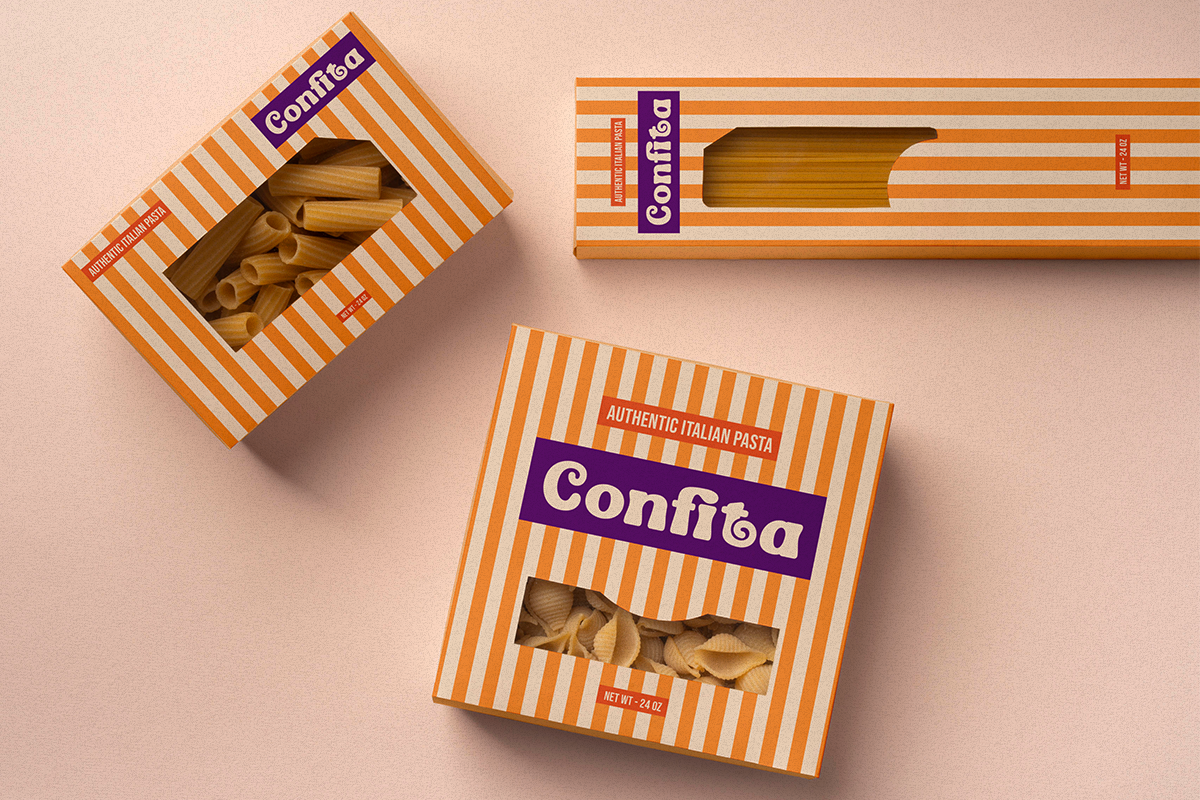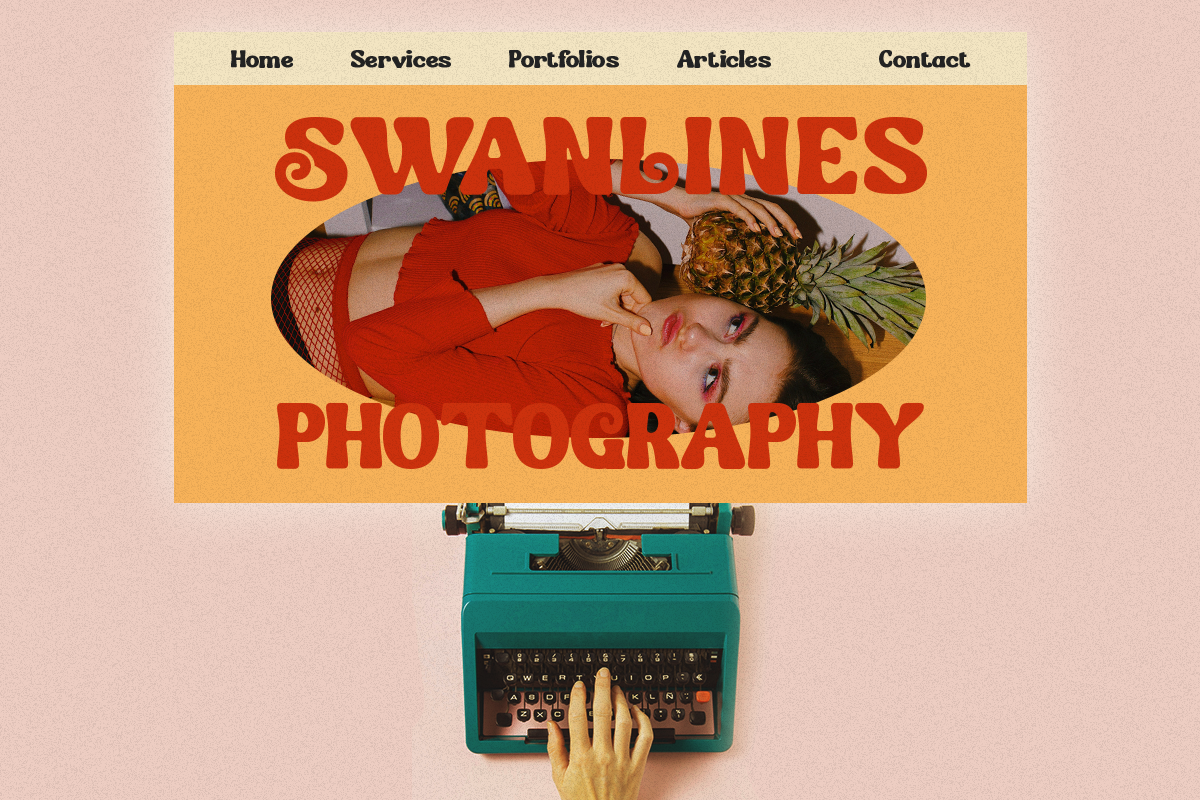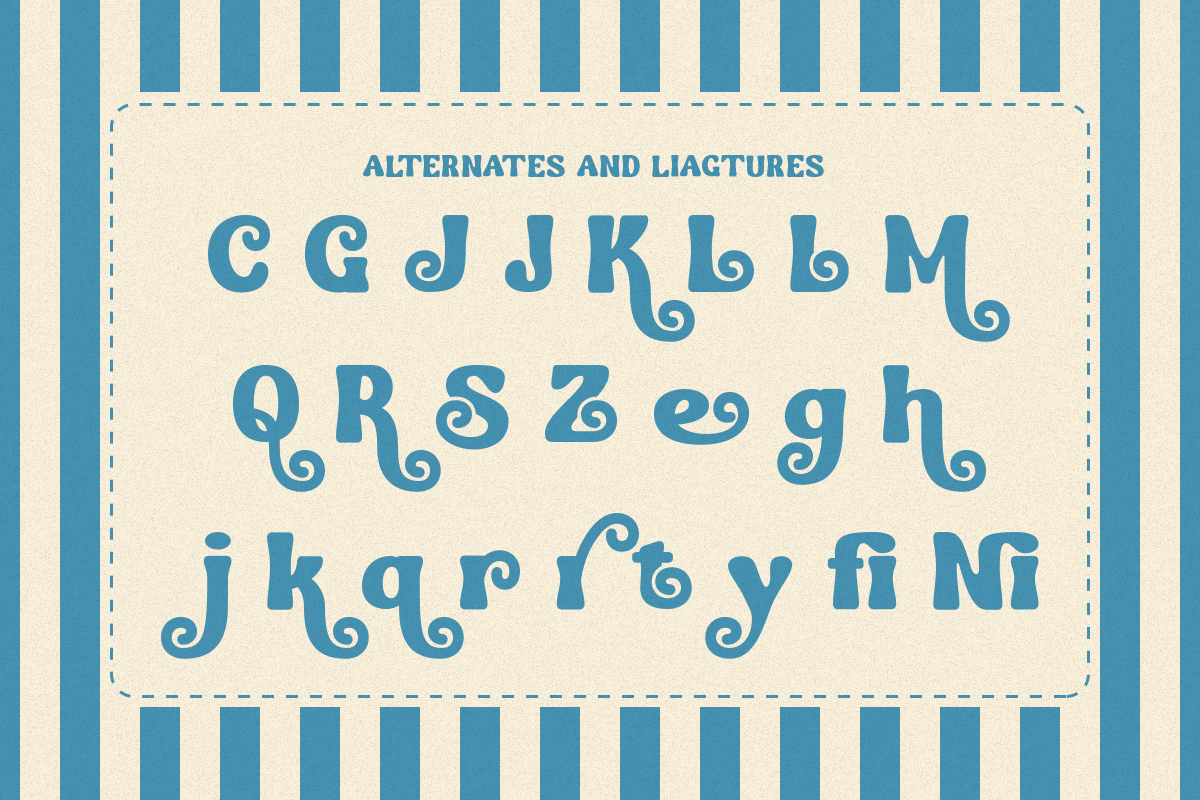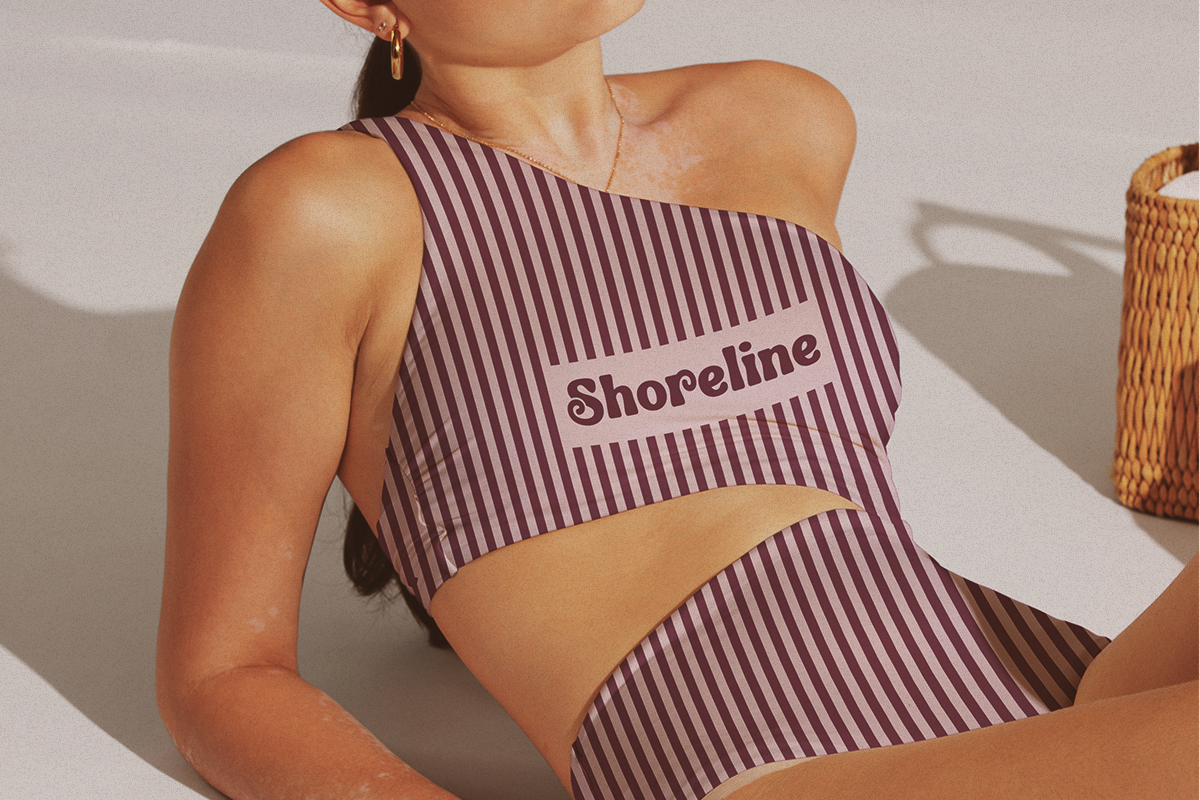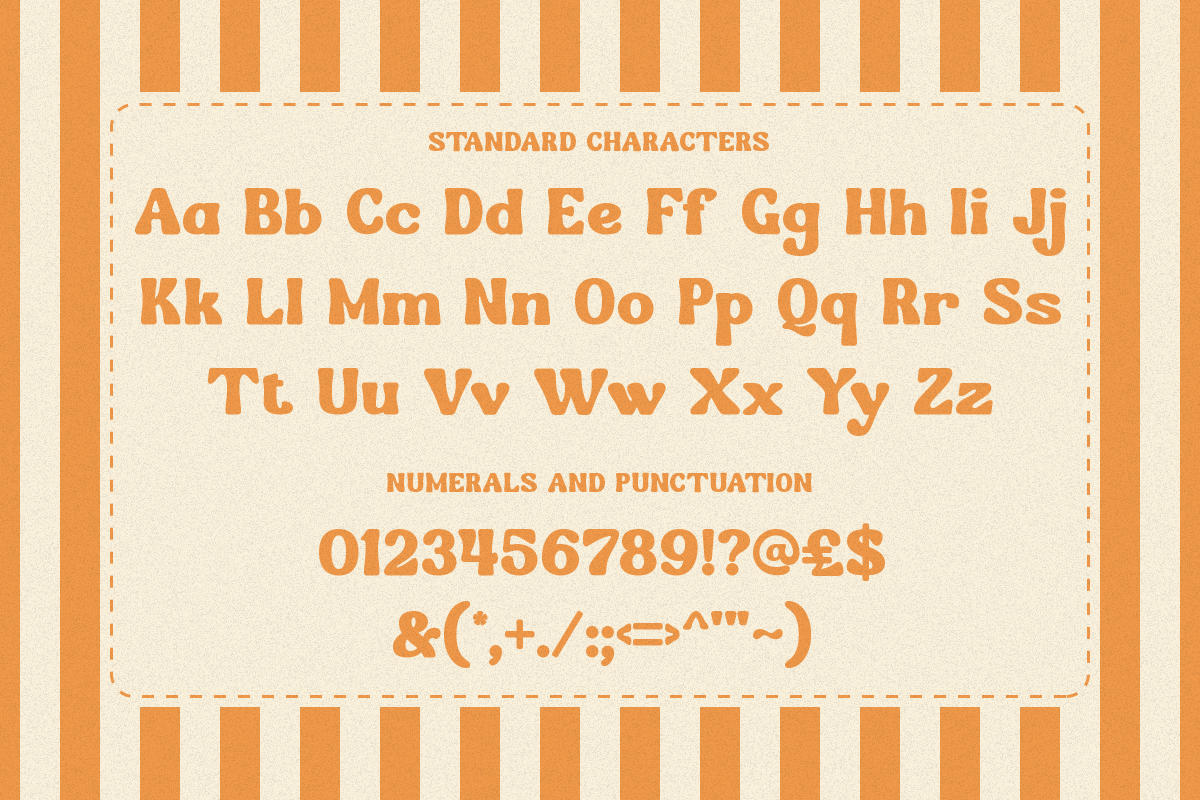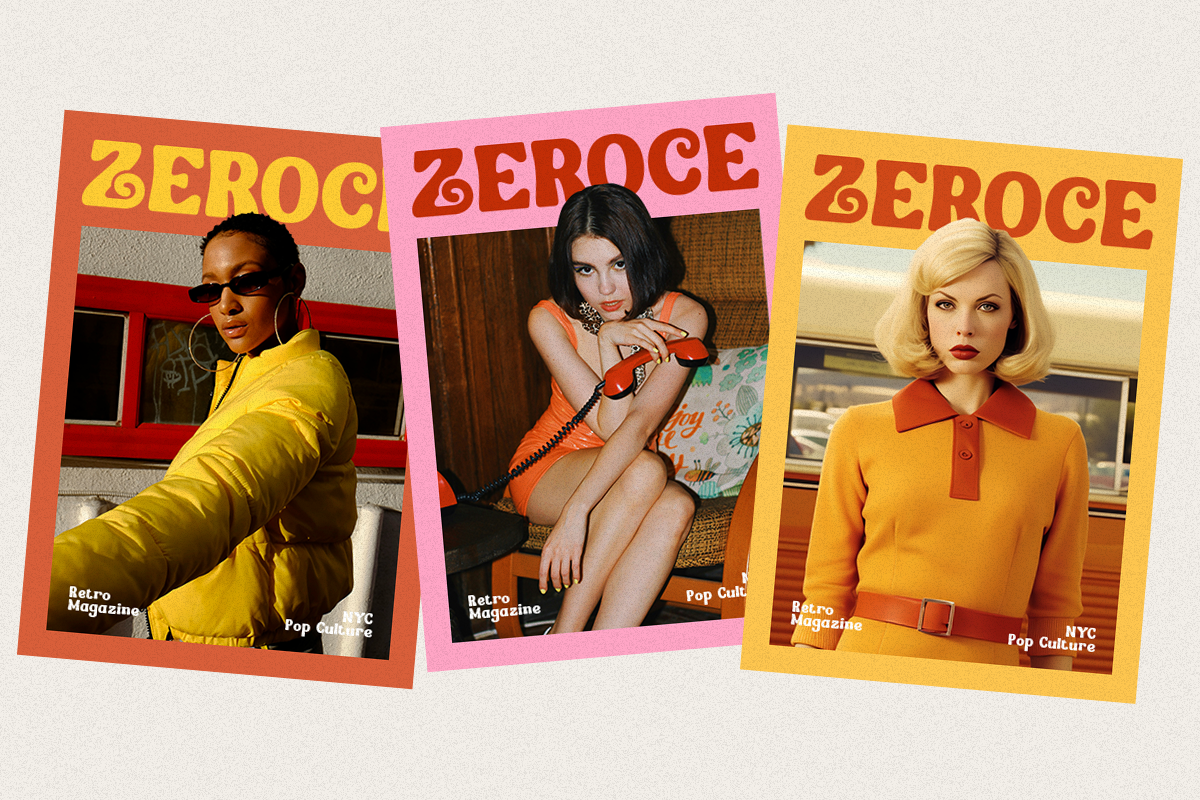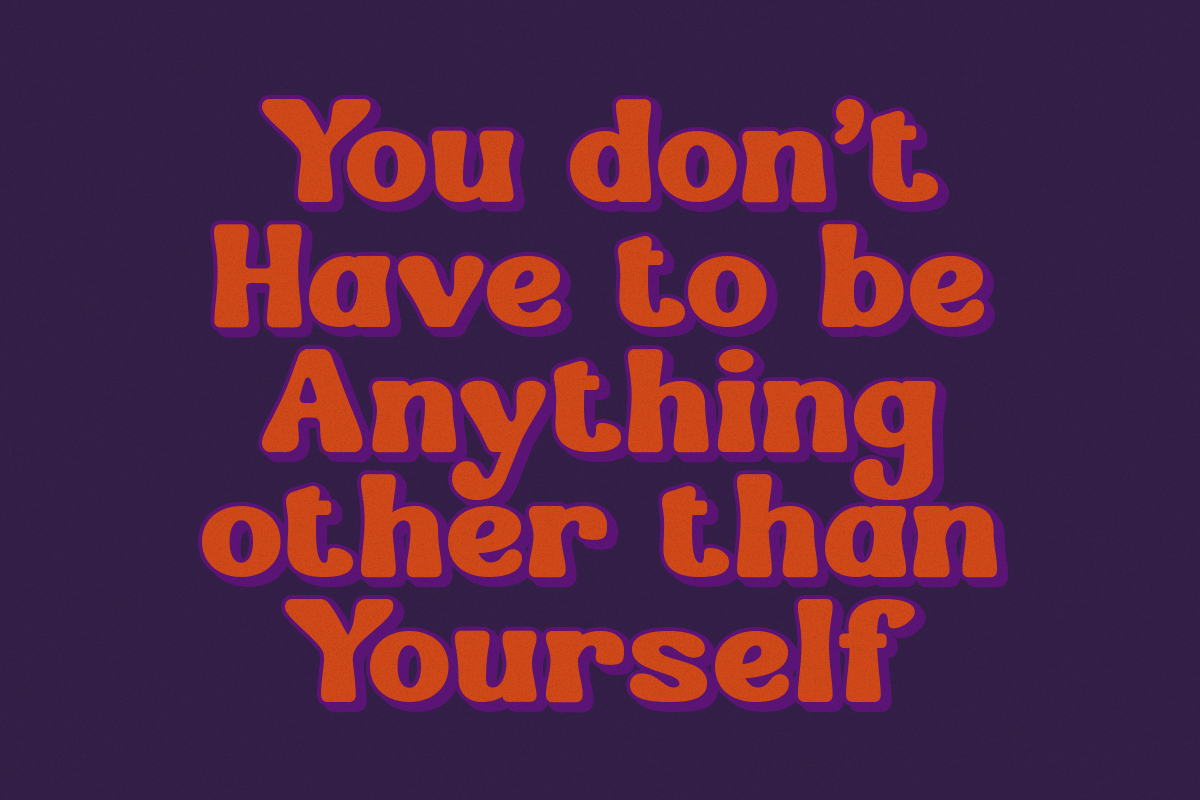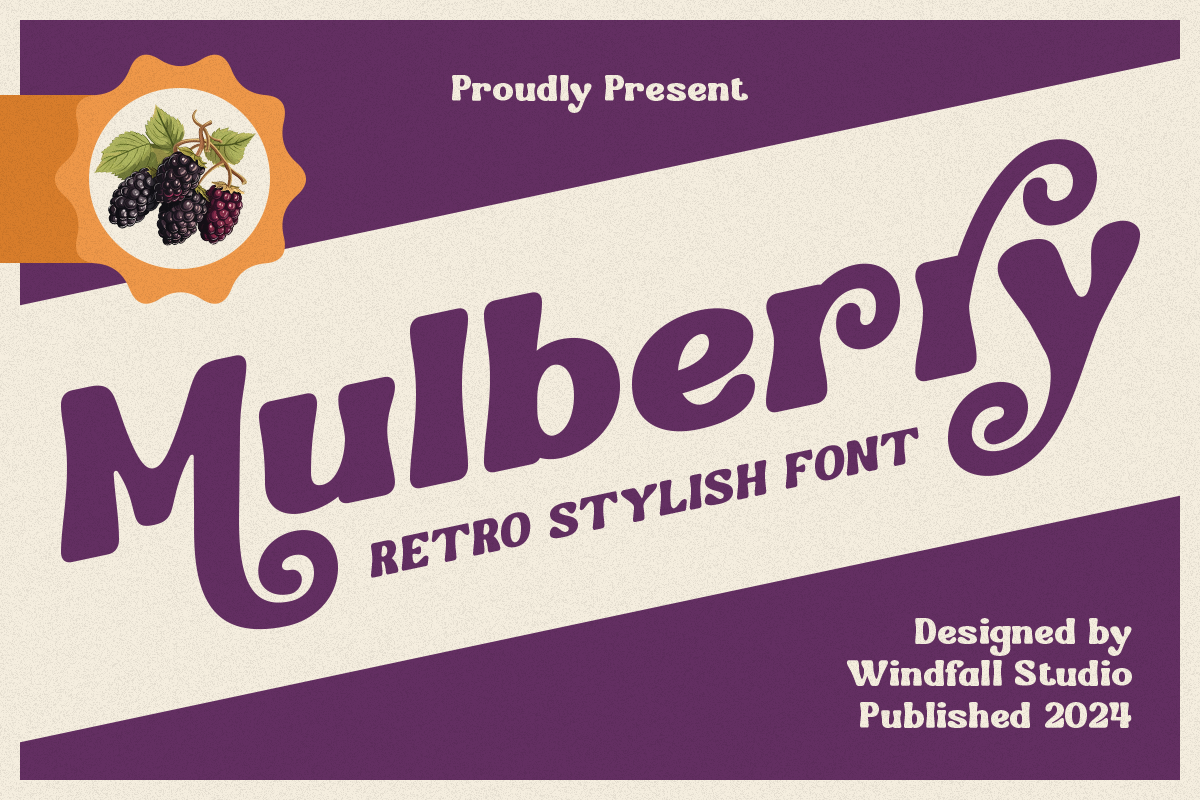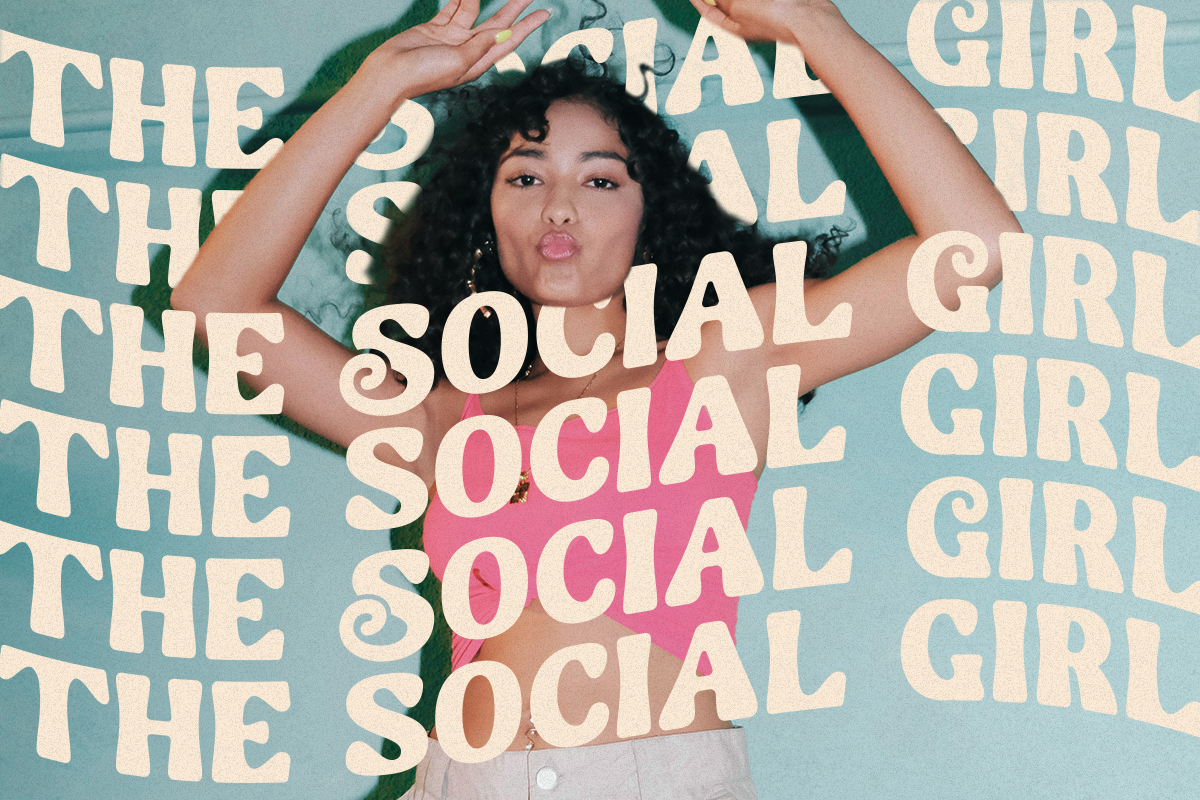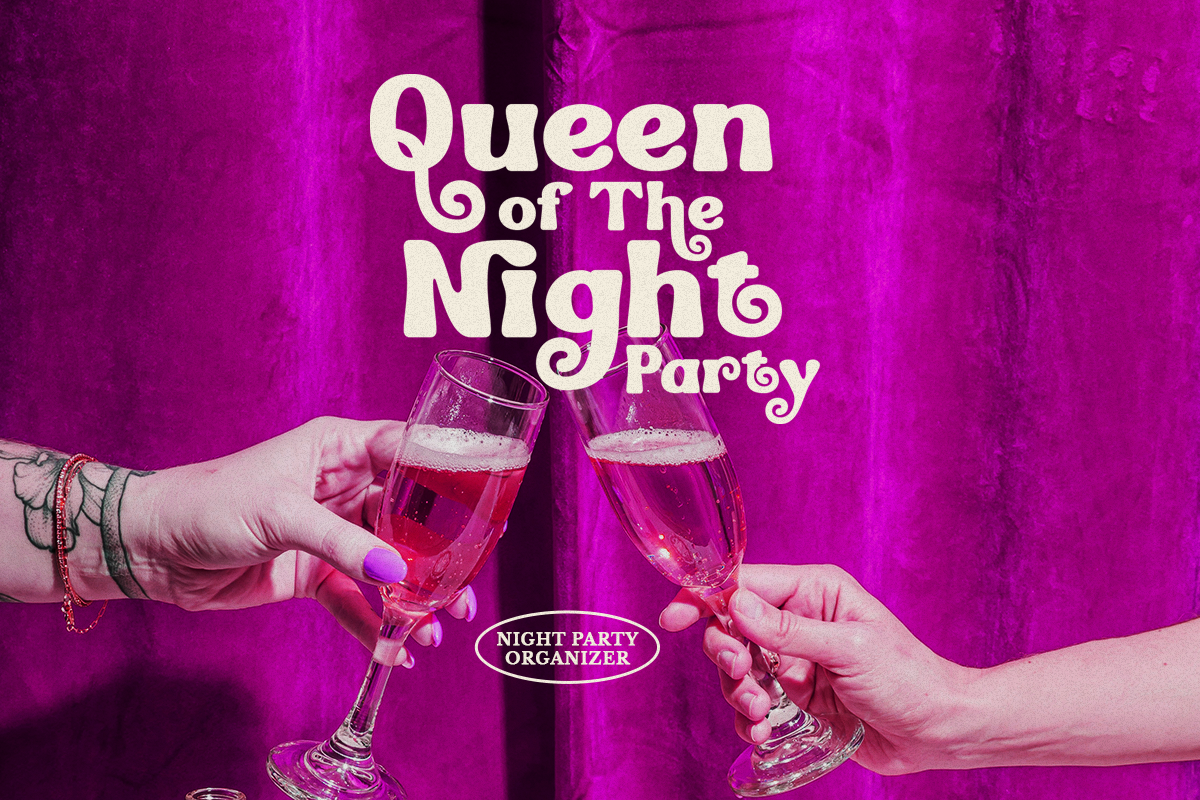
Mulberry - Bold Headline Typeface
Mulberry is a vintage font that combines groovy and psychedelic styles. It is designed to take you back to the nostalgic era of the 80s. Its unique shape provides opportunities for you to use it in various styles, especially in pop art and retro themes